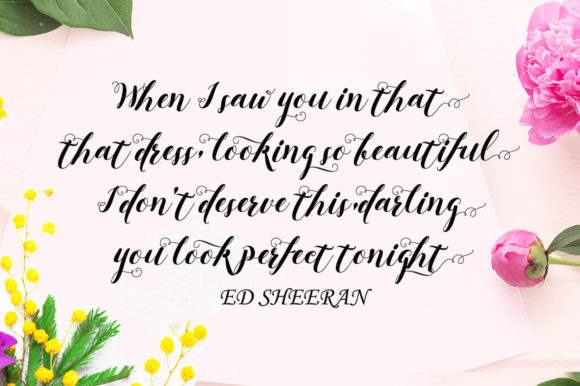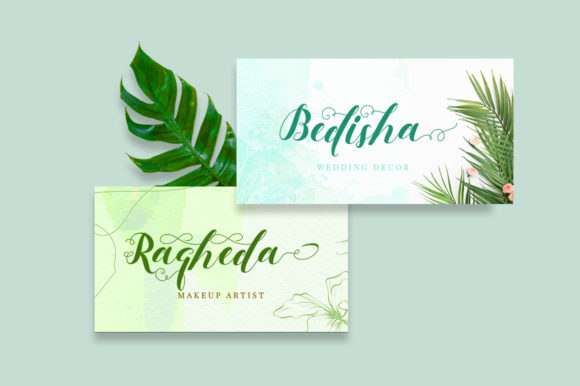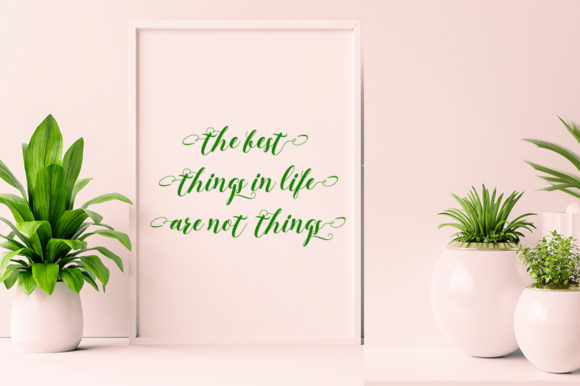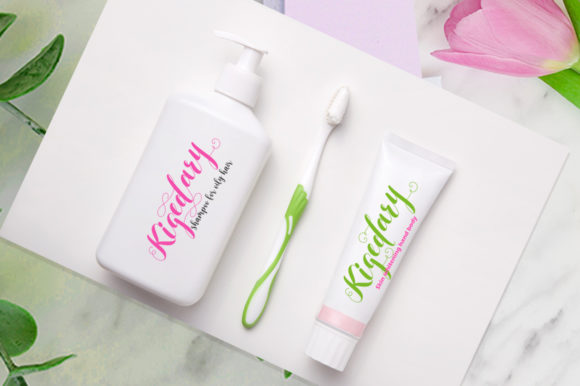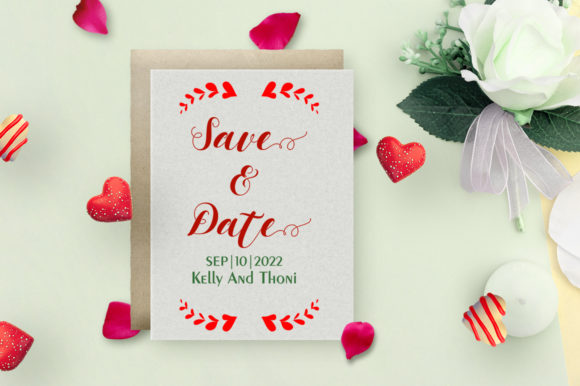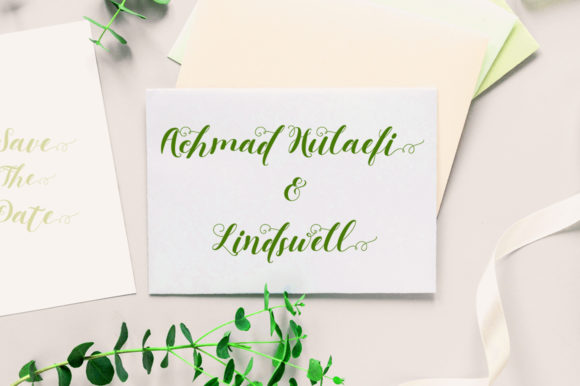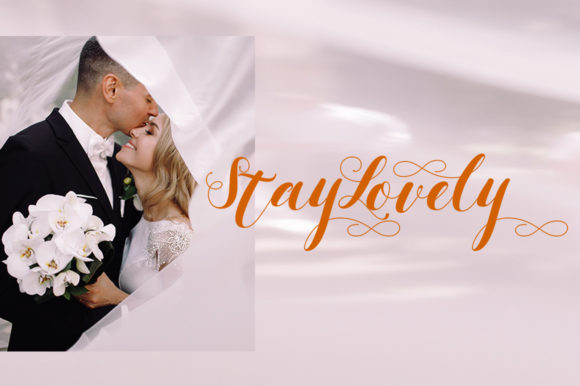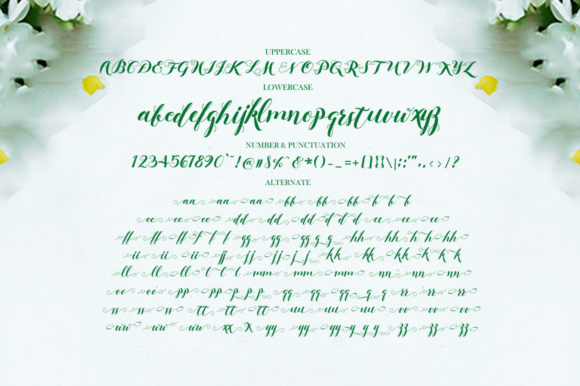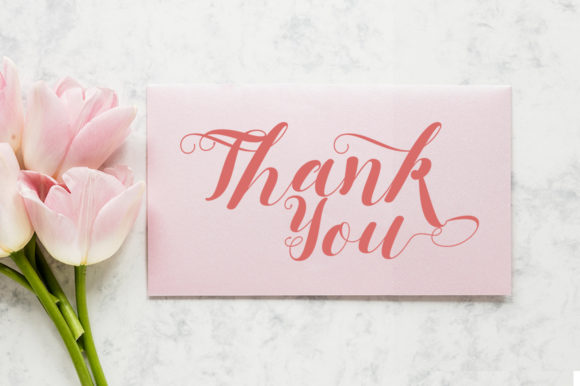
Kadupul Flowers Font
Kadupul Flowers is a charming and graceful handwritten font that adds a touch of elegance to your designs. With its fashionable and stylish appearance, this font is perfect for a wide range of design projects, including quotes, greeting cards, logos, business cards, and more.
The beauty of Kadupul Flowers lies in its delicate and flowing letterforms. Each character is crafted with precision and care, resulting in a font that exudes grace and sophistication. The curves and loops of the letters create a sense of movement and fluidity, making Kadupul Flowers visually appealing and pleasing to the eye.
One of the key strengths of Kadupul Flowers is its versatility. It can effortlessly adapt to various design themes and styles, making it suitable for a range of projects. Whether you’re working on a romantic wedding invitation, a heartfelt greeting card, or a professional logo design, Kadupul Flowers adds a handwritten touch that elevates your creations.
This font’s PUA encoding allows you to easily access all of its glyphs and swashes. With a wide selection of decorative elements and alternate characters, you can enhance your designs and create unique typographic compositions. These additional glyphs and swashes give you the flexibility to customize your text and add extra flair and personality to your designs.
Kadupul Flowers brings a sense of sophistication and elegance to any design it is used in. Its fashionable and handwritten style adds a personal and human touch, making your designs stand out. Whether you’re aiming for a romantic, whimsical, or professional look, Kadupul Flowers offers versatility and charm to fulfill your design needs.
In summary, Kadupul Flowers is a charming and graceful handwritten font that adds a touch of elegance to your designs. Its fashionable appearance makes it suitable for a variety of projects, including quotes, greeting cards, logos, and business cards. With its PUA encoding, you have easy access to a wide range of glyphs and swashes to customize your designs. Embrace the charm and versatility of Kadupul Flowers to create stunning and captivating designs that leave a lasting impression.